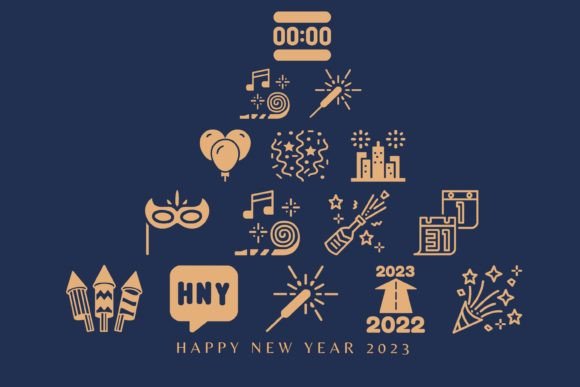
New Year Font
About New Year Font
That sounds fantastic! With the collection of 62 dingbats/doodles in the New Year’s Eve-themed font, you have a wide range of options to choose from for your creative projects. The font includes 26 capital letters, 26 small letters, and 10 numbers, providing you with a diverse set of designs to work with.
When it comes to New Year’s Eve projects, the possibilities are endless. You can use the capital letters, small letters, and numbers to create customized greeting cards, invitations, or party decorations. Combine them to form festive phrases, countdowns, or personalized messages that capture the spirit of the New Year.
The variety of dingbats/doodles in the font ensures that you have plenty of options to choose from. You can incorporate fireworks, champagne glasses, clocks, confetti, party hats, and other New Year’s Eve-related symbols into your designs. These elements will add a festive touch and help set the celebratory mood.
Whether you’re designing digital graphics, crafting handmade decorations, or creating print materials, the New Year’s Eve dingbats/doodles font will be a valuable asset. You can use the letters and numbers as decorative elements, or even as standalone designs, to add a unique and personalized touch to your projects.
So, get ready to embrace the New Year’s spirit and let your creativity soar with the wide array of options offered by this font. Whether you’re creating New Year’s cards, banners, social media graphics, or party favors, the New Year’s Eve dingbats/doodles font will provide you with a versatile and exciting collection to make your projects shine.